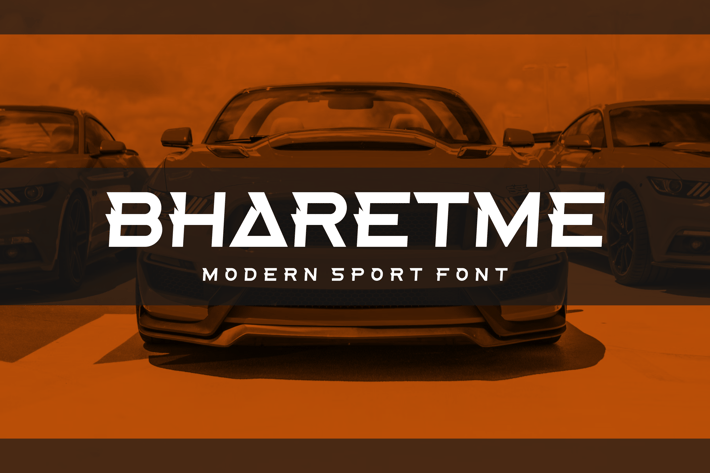
Bharetme - Sport Font
Introducing our new product Bharetme - Sport Font Modern Font
Bharetme - Sport Font - Modern Font is a bold and authentic display font. The font is suitable for any branding project like logo, t-shirt printing, esport, and many more. outstanding in a wide range of contexts.